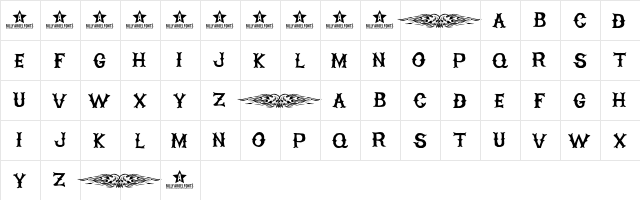
HIGH ON FIRE TRIAL
Design Context for HIGH ON FIRE Typeface
HIGH ON FIRE is a composed and adaptable typeface that performs quietly and consistently across a wide range of design contexts.